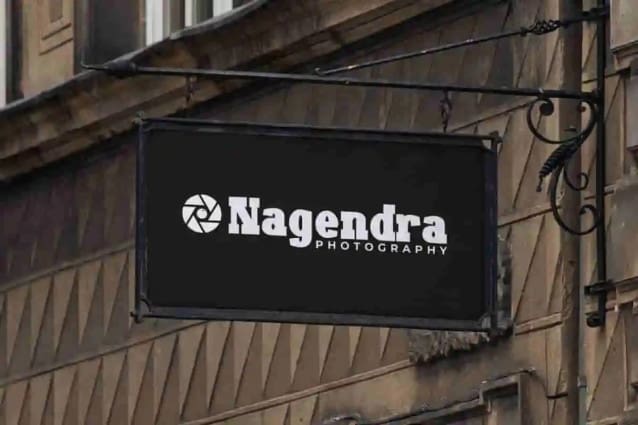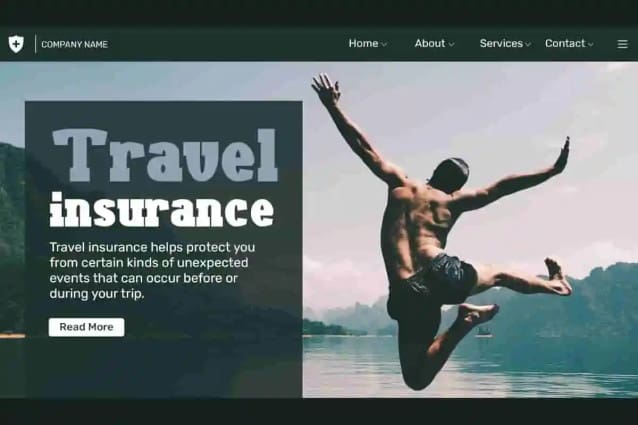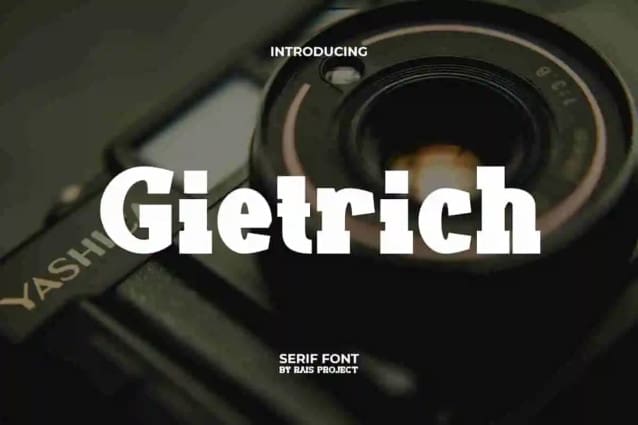
Gietrich Font
Gietrich Font is a stylish casual yet playful serif display by RaisProject. This font has bold characters, even the short lines on the edges of the letters are made bold too so that the appearance is unique. It will look good on invitation, stationery, poster, custom design, product packaging, quotes, signage, brand image, advertisement, label, marketing material, website page, and more!
Introducing Gietrich Display Font – a bold, modern, and striking typeface crafted to give your projects a strong and unforgettable identity. With its clean lines, sharp details, and dynamic display style, Gietrich is perfect for designs that demand power, confidence, and professionalism. From logos and posters to branding, packaging, merchandise, and social media graphics, this font ensures your work stands out in any setting.
Gietrich Display Font is designed for creatives who want to make a big impact. Its bold letterforms are ideal for sports branding, gaming visuals, event promotions, advertising campaigns, and editorial layouts. Whether you’re building eye-catching headlines or stylish marketing materials, Gietrich combines readability with strong character to deliver results that impress.